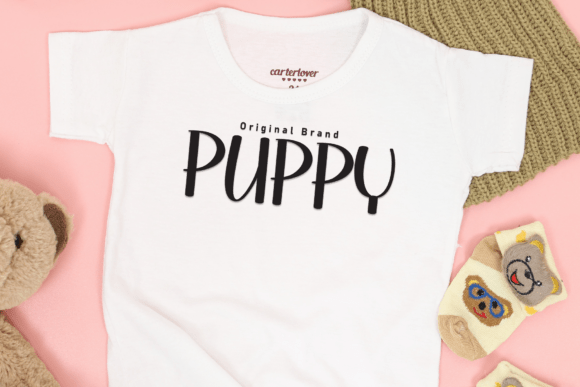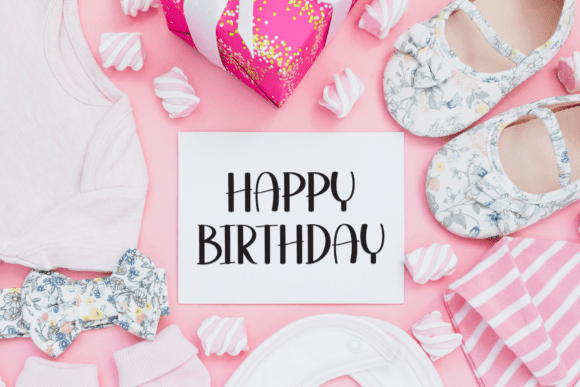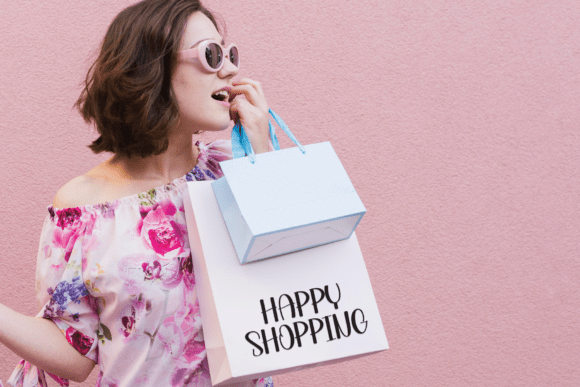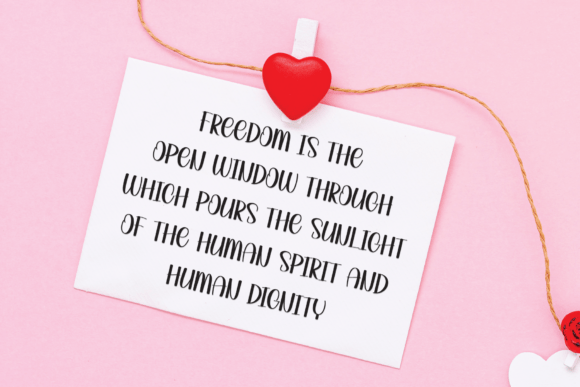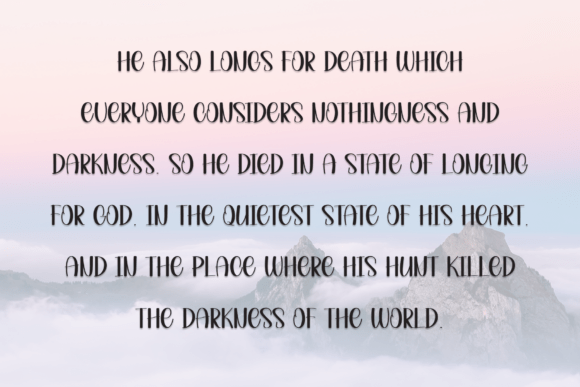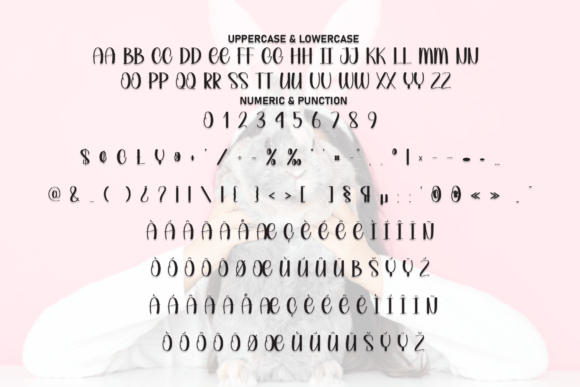
Introducing “Sweet and Friendly”: The Funny Bunny Font that Brings Joy and Whimsy to Your Designs
Are you tired of using the same old fonts in your designs? Do you want to add a touch of playfulness and whimsy to your projects? Look no further than “Sweet and Friendly”, the Funny Bunny Font that’s sure to bring a smile to your face. This irresistible display font is designed to exude dynamism and seduction, while also conveying a sense of genuineness and charm.
What Makes “Sweet and Friendly” So Special?
“Sweet and Friendly” is more than just a font – it’s an experience. With its unique handicraft excellence and endearing sweetness, this font is sure to craft a charming atmosphere that’s truly one of a kind. Whether you’re designing wedding invitations, whimsical cards, or any other type of project, “Sweet and Friendly” is the perfect attribute to add a touch of magic and wonder.
One of the standout features of “Sweet and Friendly” is its timeless element of playfulness. This font radiates a sense of fun and joy, making it perfect for designers and crafters who want to add a dash of personality to their work. Whether you’re creating a design for a children’s party or a romantic wedding, “Sweet and Friendly” is sure to bring a sense of delight and wonder.
The Story Behind “Sweet and Friendly”
The “Sweet and Friendly” font was designed with one goal in mind: to create a font that would bring happiness and joy to designers and crafters. With its irresistible magnetism and exceptional charisma, this font is sure to make your designs stand out from the crowd. Whether you’re a professional designer or a DIY crafter, “Sweet and Friendly” is the perfect tool to add a touch of personality and whimsy to your work.
How to Use “Sweet and Friendly” in Your Designs
Using “Sweet and Friendly” in your designs is easy. Here are a few tips to get you started:
- Use “Sweet and Friendly” as a display font to add a touch of drama and whimsy to your designs.
- Pair “Sweet and Friendly” with other fonts to create a unique and eye-catching combination.
- Use “Sweet and Friendly” to add a touch of personality to your designs, whether you’re creating a wedding invitation or a children’s party flyer.
The Benefits of Using “Sweet and Friendly”
There are many benefits to using “Sweet and Friendly” in your designs. Here are just a few:
- Unique and eye-catching: “Sweet and Friendly” is a one-of-a-kind font that’s sure to make your designs stand out from the crowd.
- Playful and whimsical: This font radiates a sense of fun and joy, making it perfect for designers and crafters who want to add a touch of personality to their work.
- Versatile: “Sweet and Friendly” can be used in a wide range of designs, from wedding invitations to children’s party flyers.
- Irresistible display font with dynamism and seduction
- Exceptional charisma of genuineness and charm
- Timeless element of playfulness and whimsy
- Perfect for wedding invitations, whimsical cards, and more